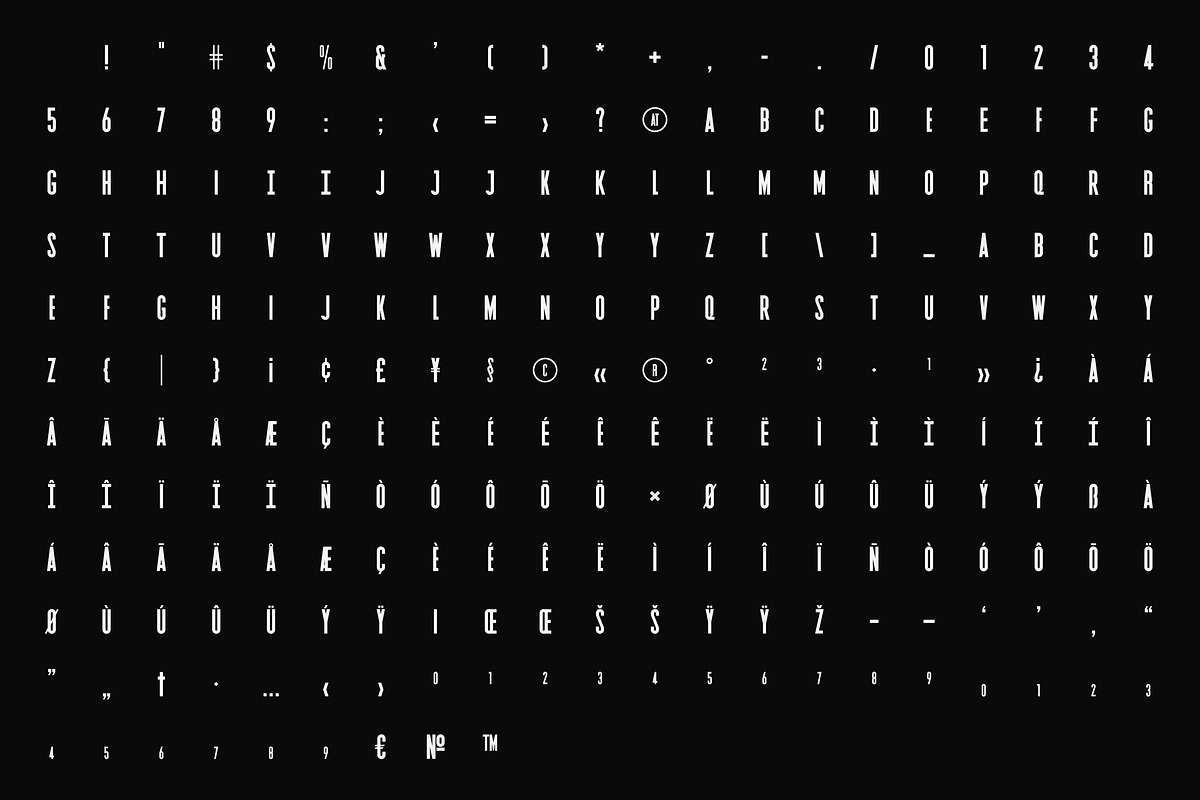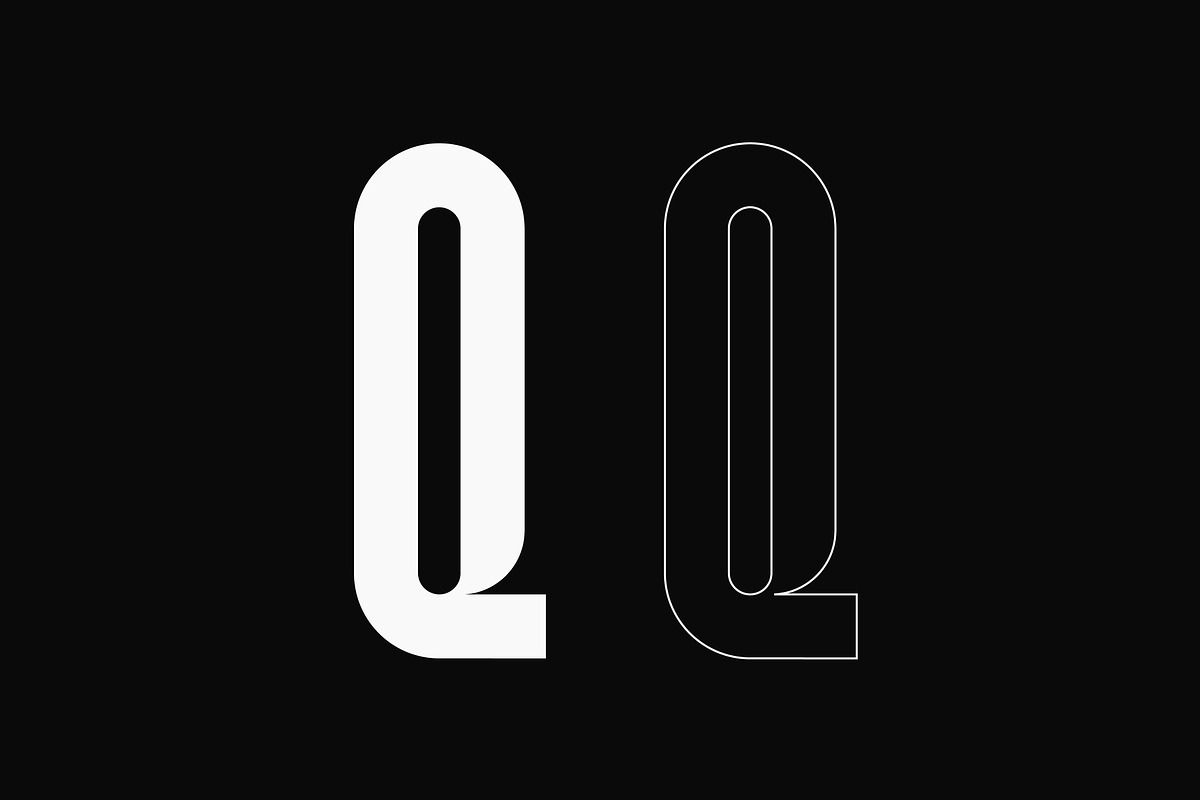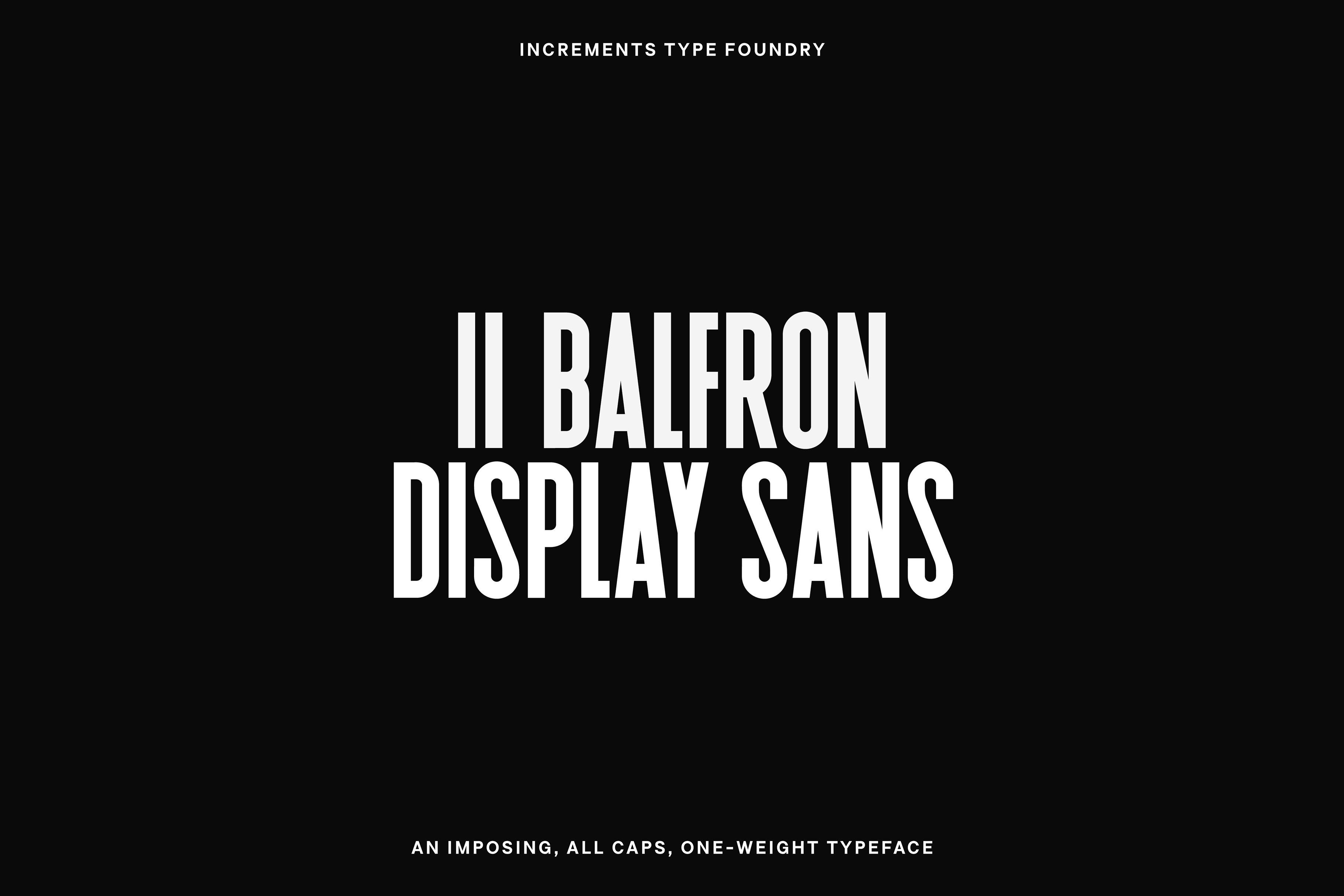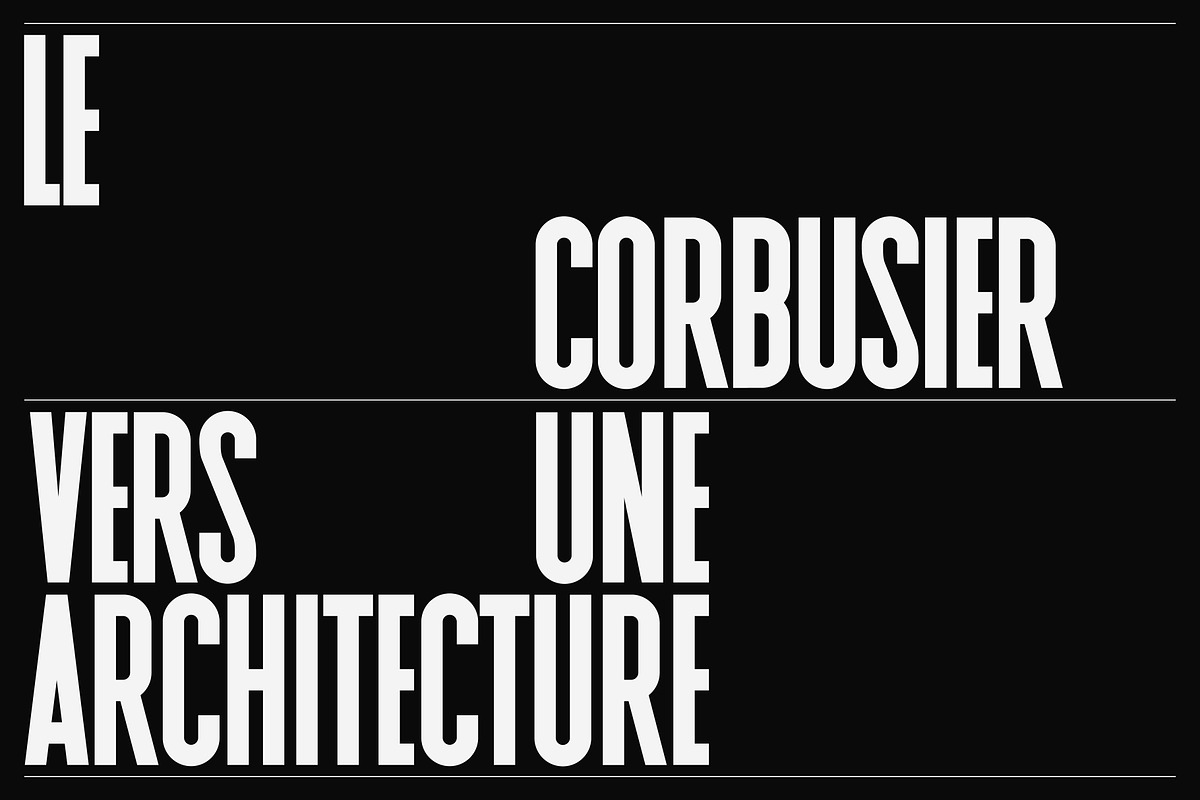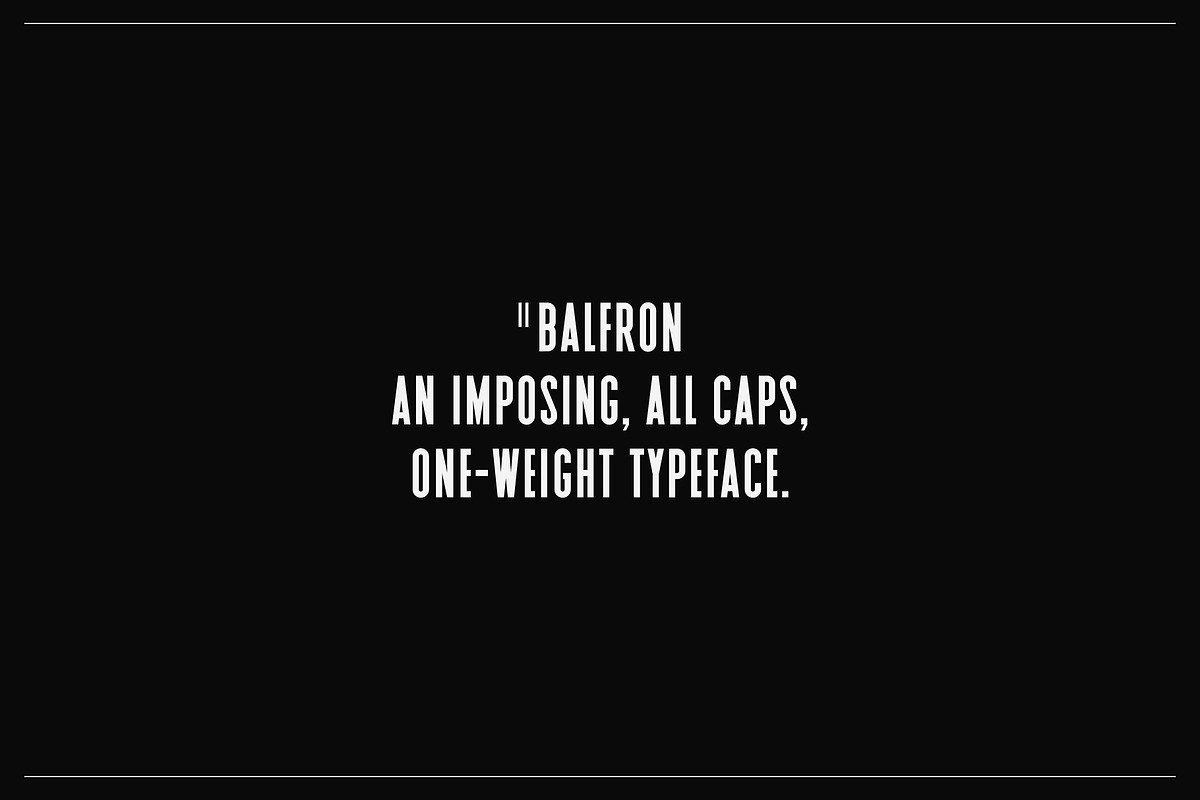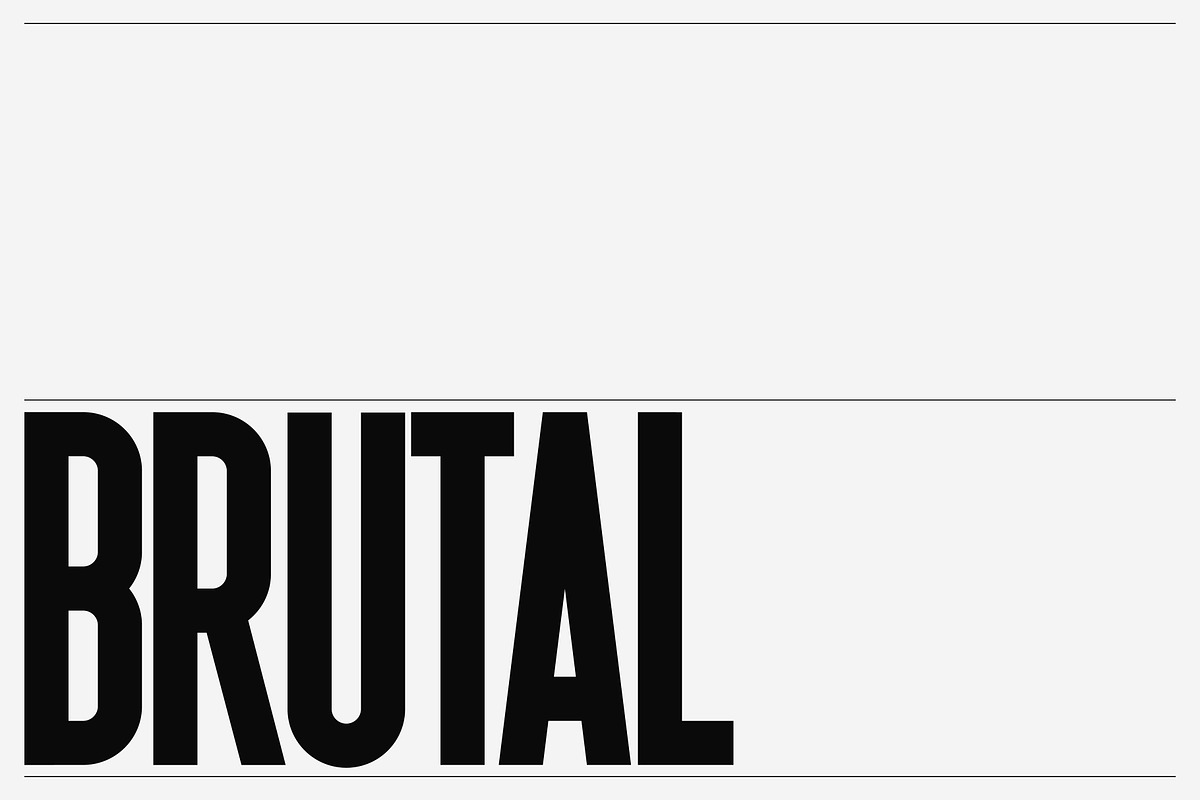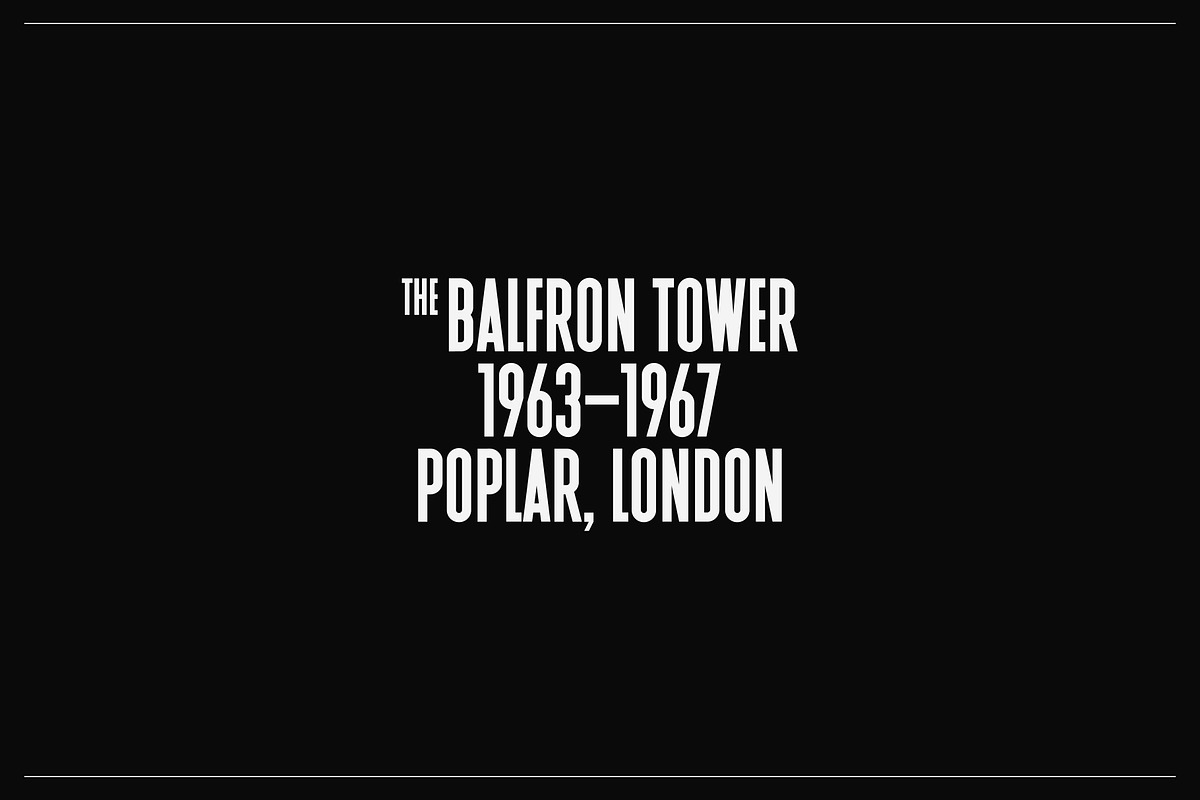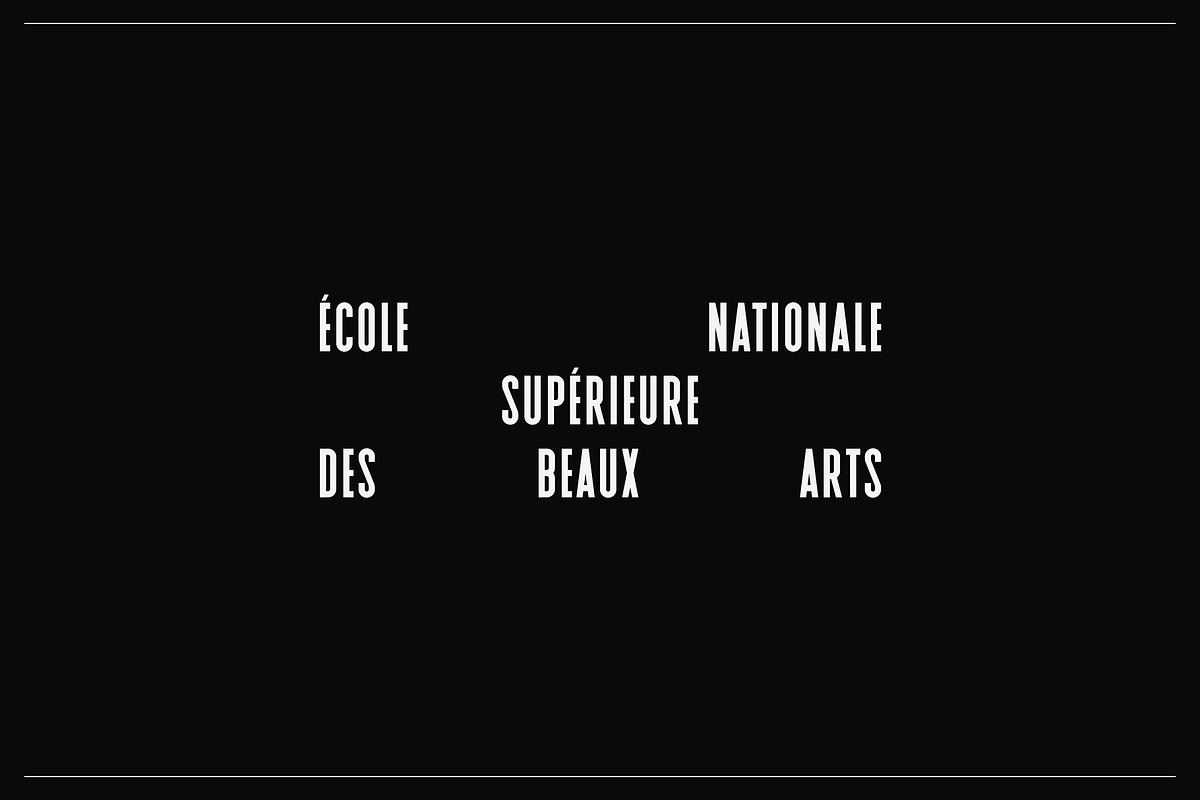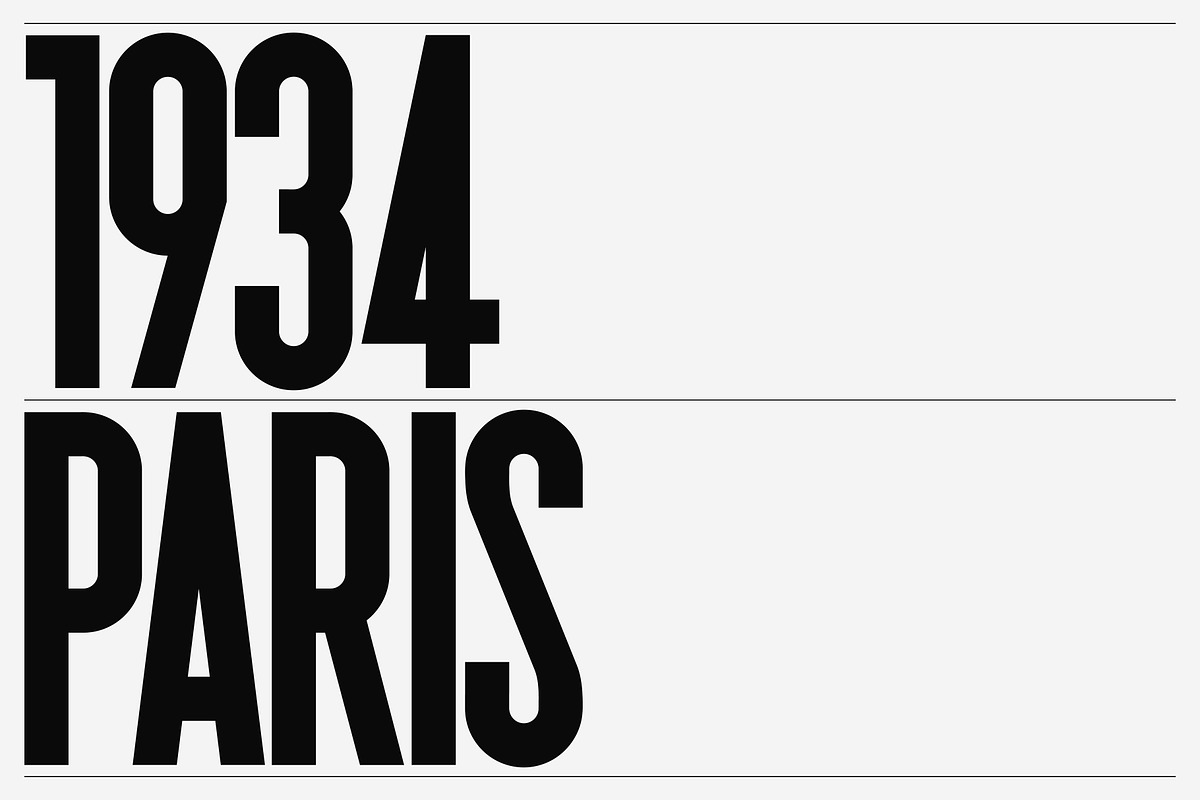
II Balfron: Display Sans Font Family
Inspired by Ernö Goldfinger's east London tower block of the same name, II Balfron is an imposing, all caps, one-weight typeface. Set within a rigid structural grid, the unexpected angles embody the brutal principles of the original concrete profile. Much like Goldfinger's utopian housing ideals, the font is best viewed at large scale.